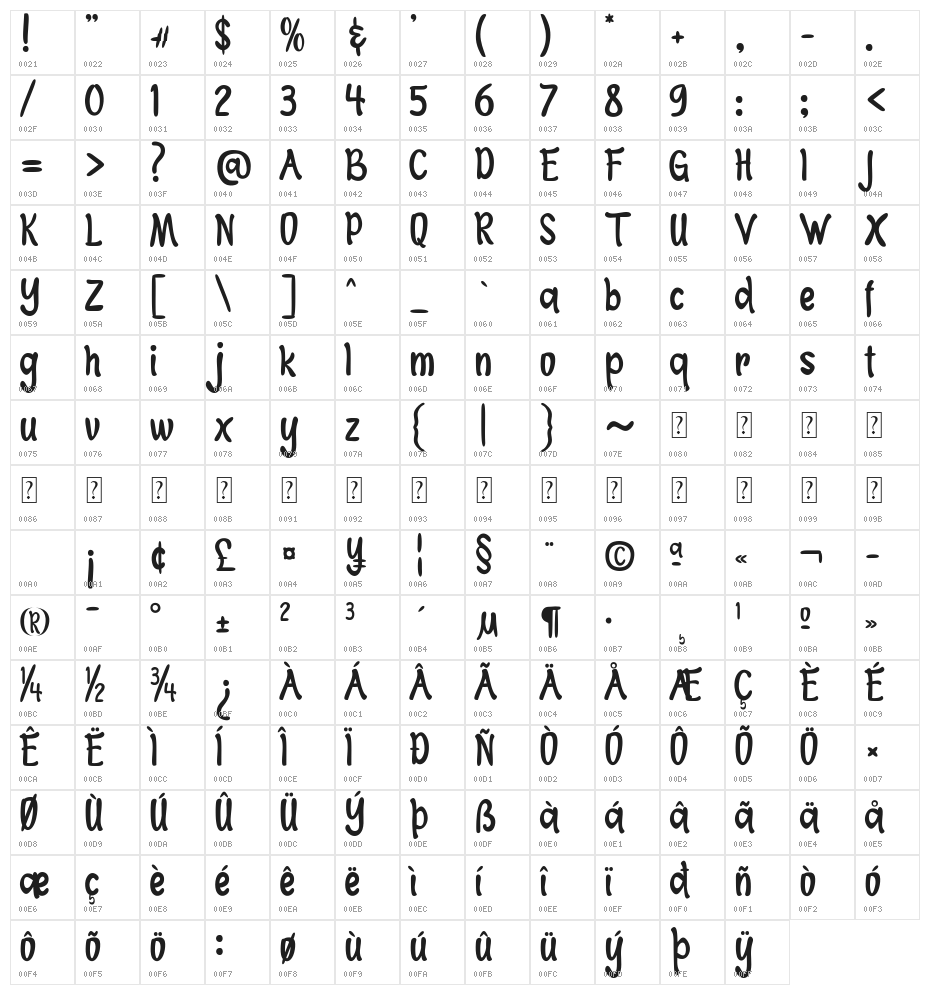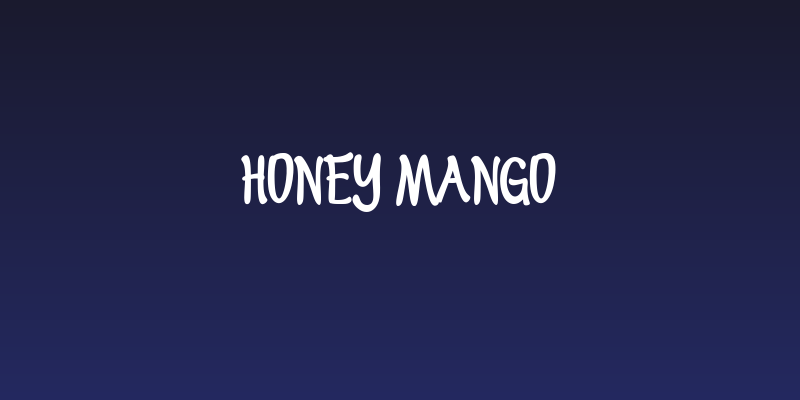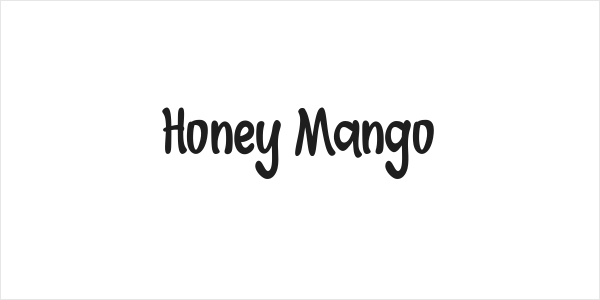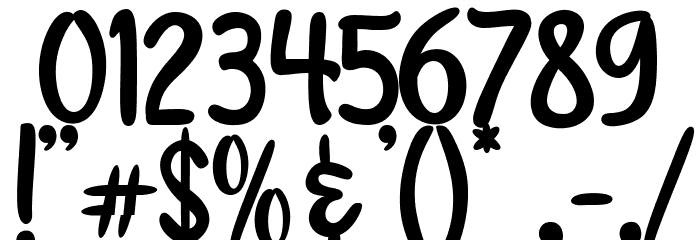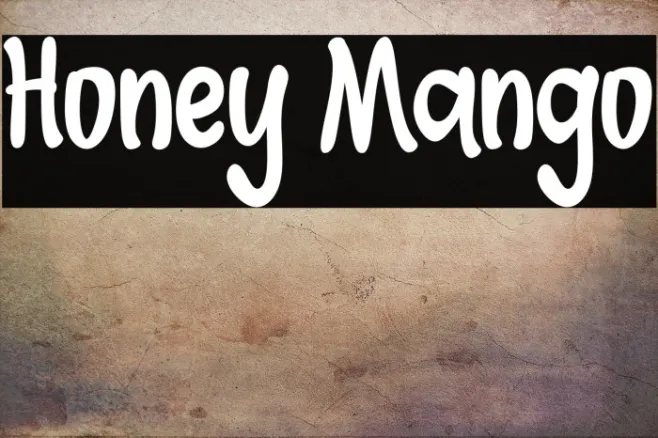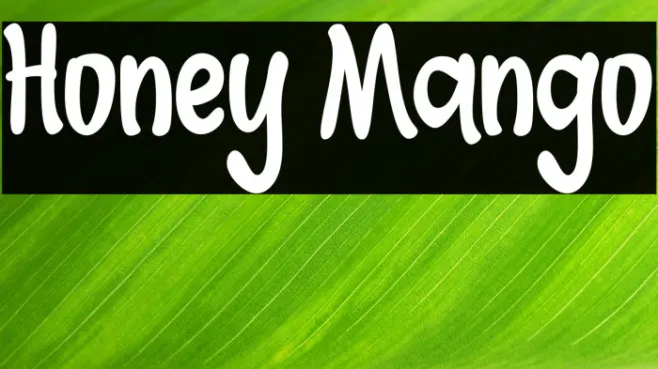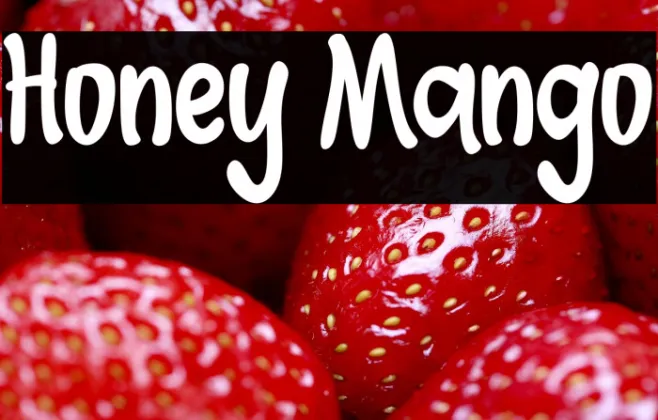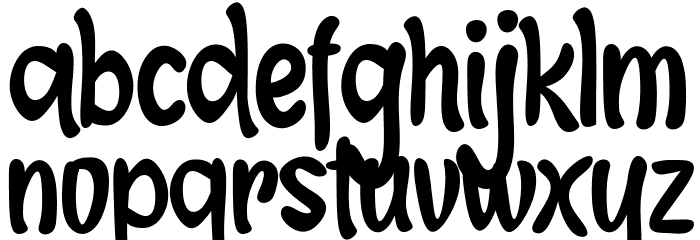
Honey Mango Font
Honey Mango Description
This font exudes a playful and casual vibe with its handwritten style. The letters are bold and rounded, giving a friendly and approachable appearance. The strokes are consistent in thickness, contributing to a uniform look across all characters. The uppercase and lowercase letters maintain a cohesive style, while the numbers and special characters blend seamlessly with the overall design. The font's informal nature makes it suitable for projects that require a personal touch or a relaxed atmosphere.
| Use Case | Logos, Headlines, Informal Text |
| Proposed Projects | Ideal for greeting cards, children's books, casual branding, and social media graphics. |